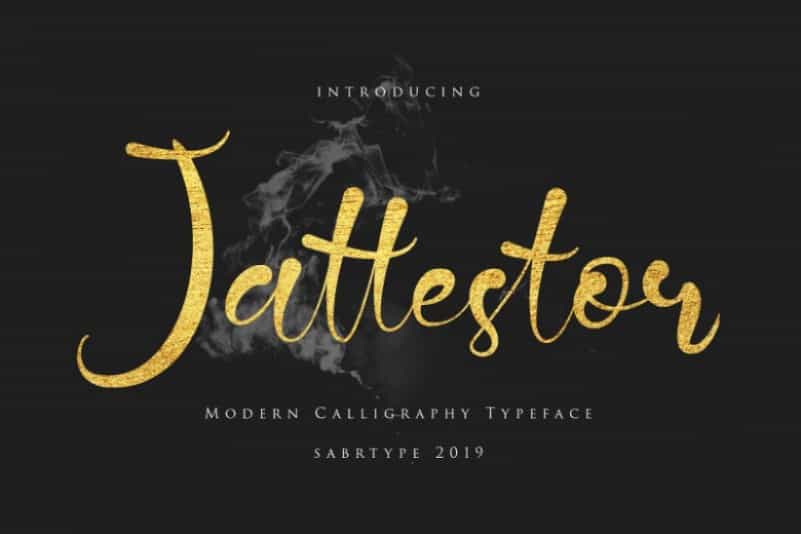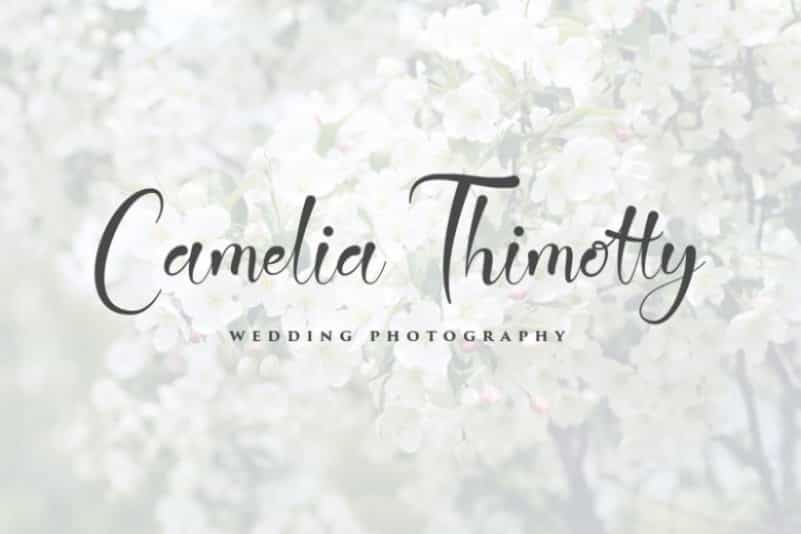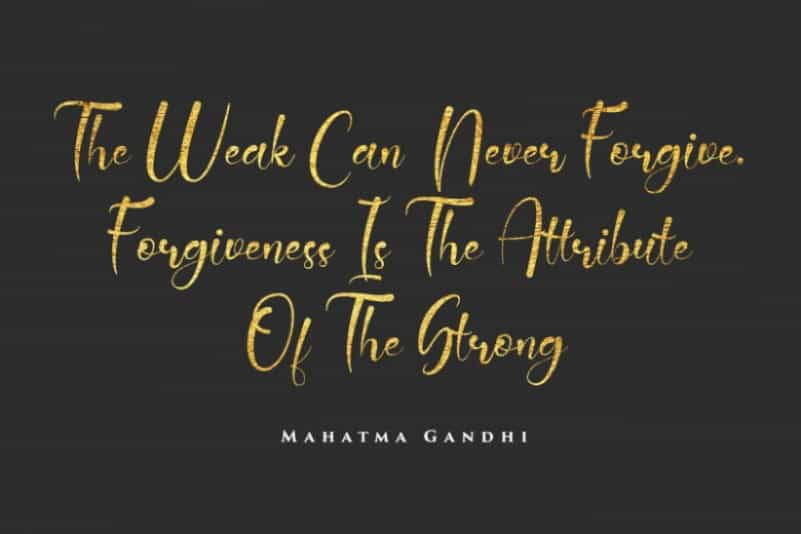
Introducing Jattestor Font. Jattestor Modern Calligraphy Typeface, a new script font from Sabrtype studio in a modern, plain and elegant style. Jattestor Modern Calligraphy Typeface font is a great choice for many different projects such as logos & branding, invitation, stationary, wedding designs, social media posts, advertisements and so on.